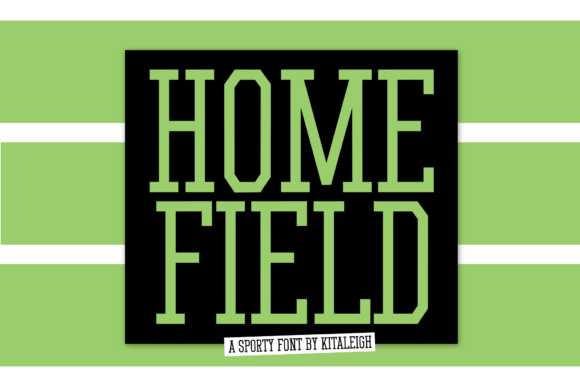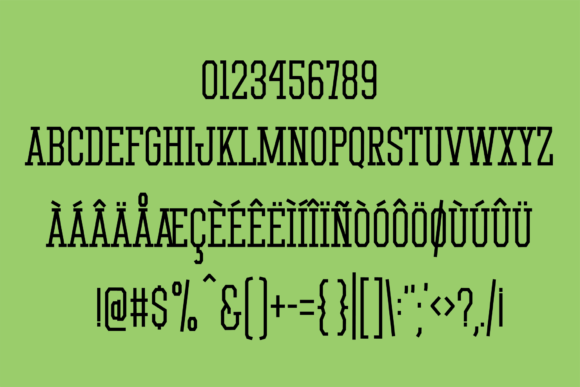
Home Field Font
About the Home Field Font
The Home Field Font is here to transform your projects with its distinctive character and style. Step onto the field with Home Field, the ultimate sporty font that’s designed to capture the bold, competitive spirit of every game! With its strong, blocky design and athletic aesthetic, this typeface is perfect for sports branding, team logos, and any project that demands a winning look. Whether you’re creating designs for posters or game day flyers, Home Field will have your audience cheering in no time. This font is the perfect fit for sports fans and creative projects that need that extra kick of energy and enthusiasm!
Home Field Font Usage Examples
Home Field Font Example